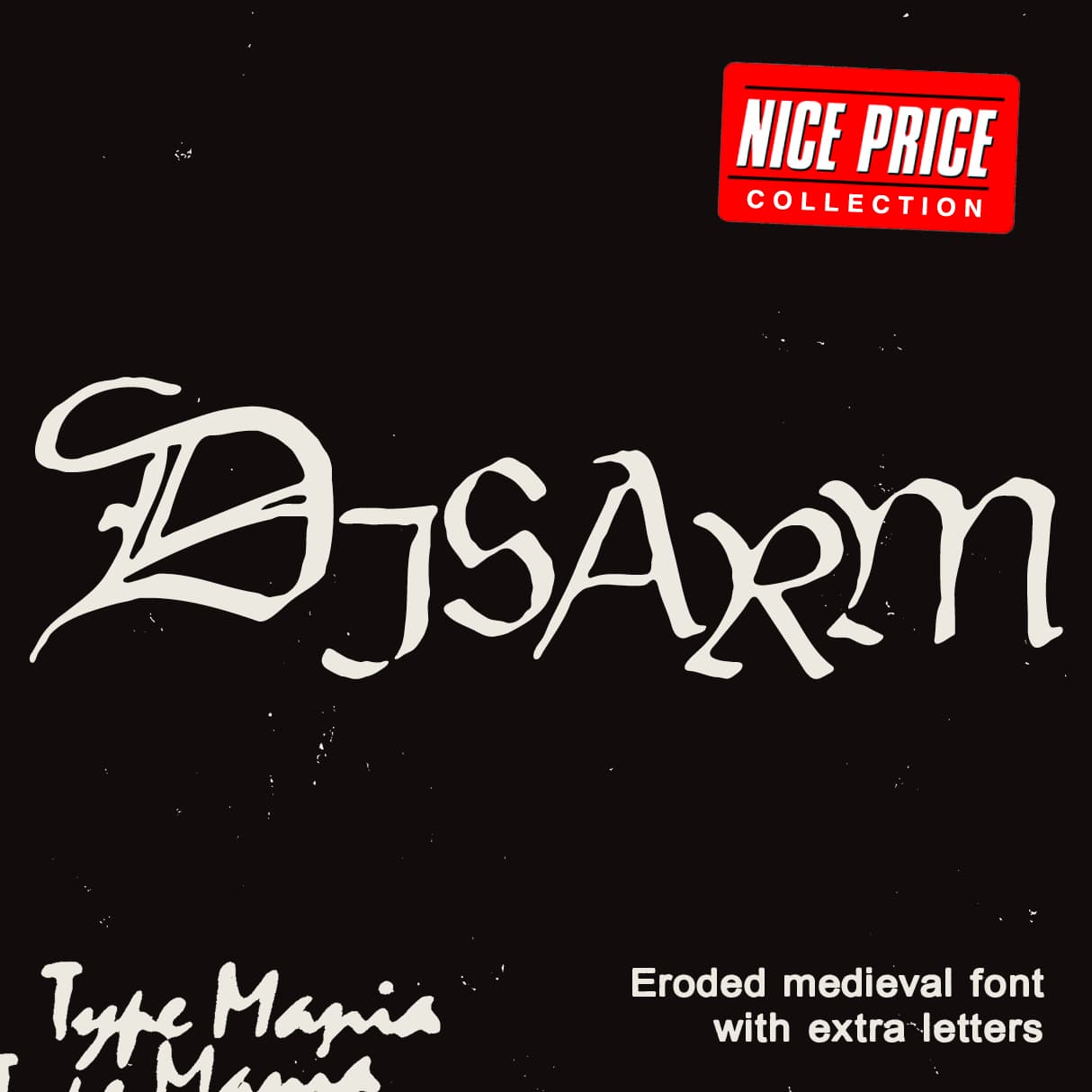
<p><strong>Disarm TM</strong> – a Fraktur with irregular rhythm and distressed details. Limited languages, but alternative capital letters on Stylistic Set 2 🤝</p><p></p><p><strong>Zip includes</strong></p><ul><li><p>OTF file</p></li><li><p>TTF file</p></li><li><p>WOFF2 file</p></li></ul><p></p><p><strong>Languages</strong></p><ul><li><p>Basic Latin</p></li><li><p>Euro</p></li></ul><p></p><p><em>Graphic Design is Easy (with Type Mania)®</em></p>